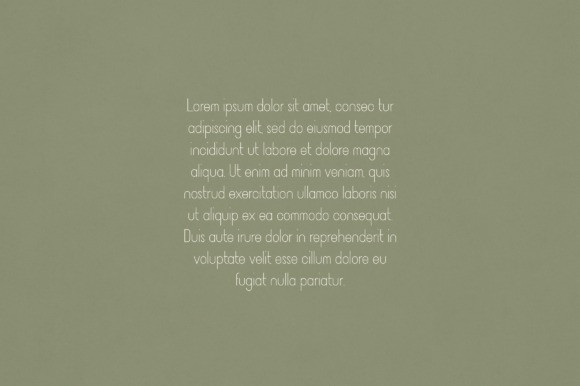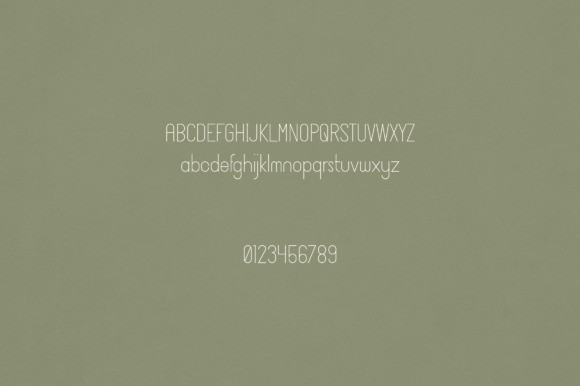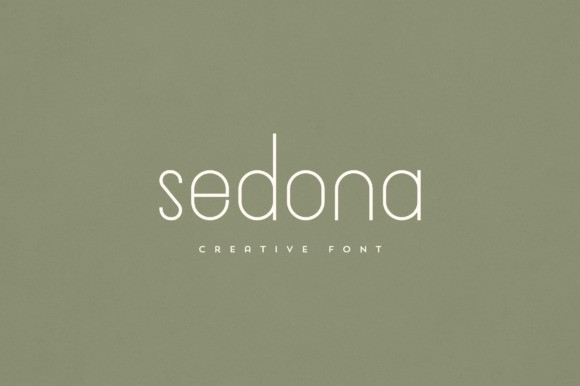
Sedona Font
Sedona Font is an elegant and versatile sans serif font that will make your typography truly unique! It will enchant every logo, branding, headline, or plain text!